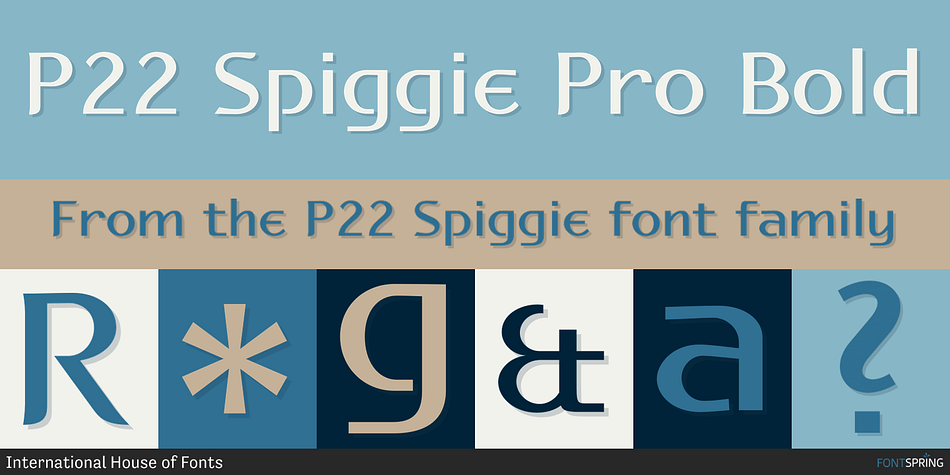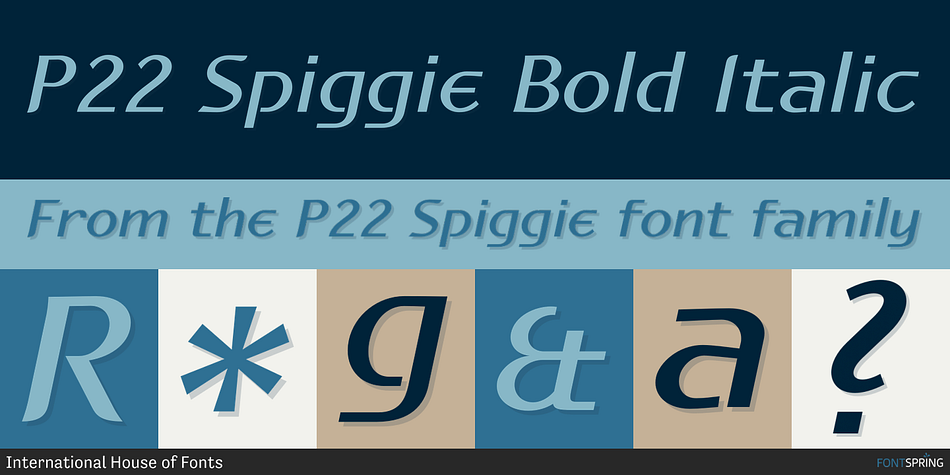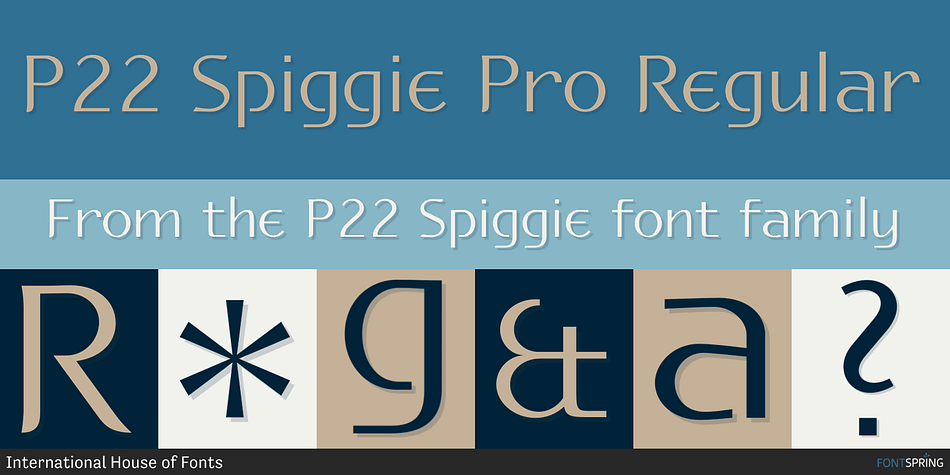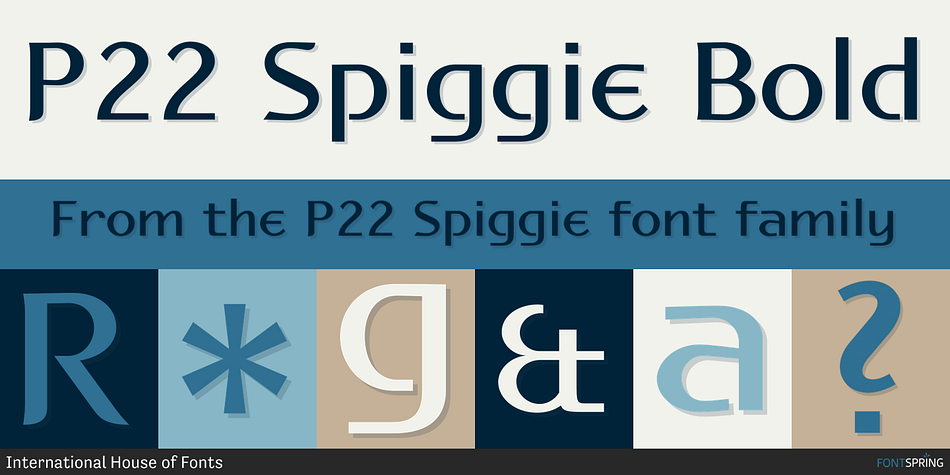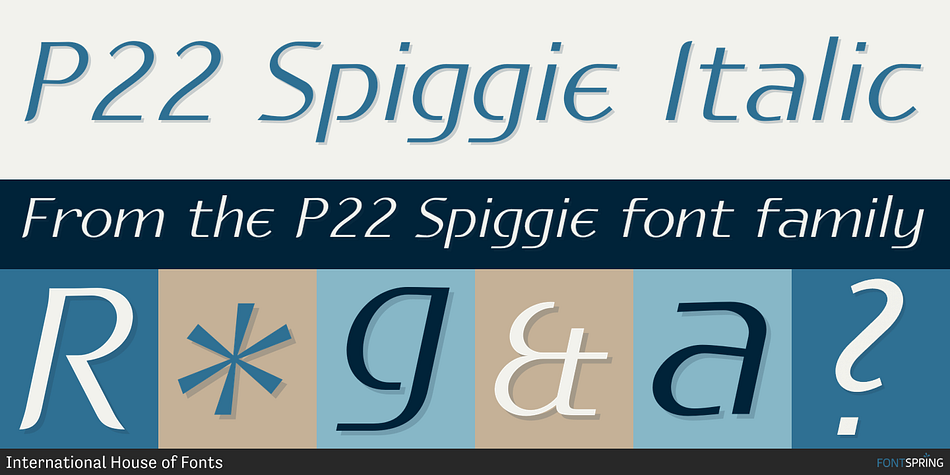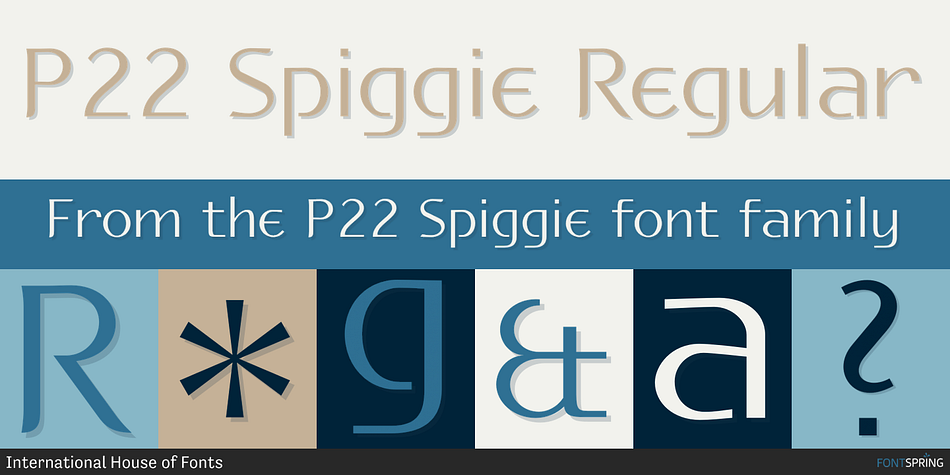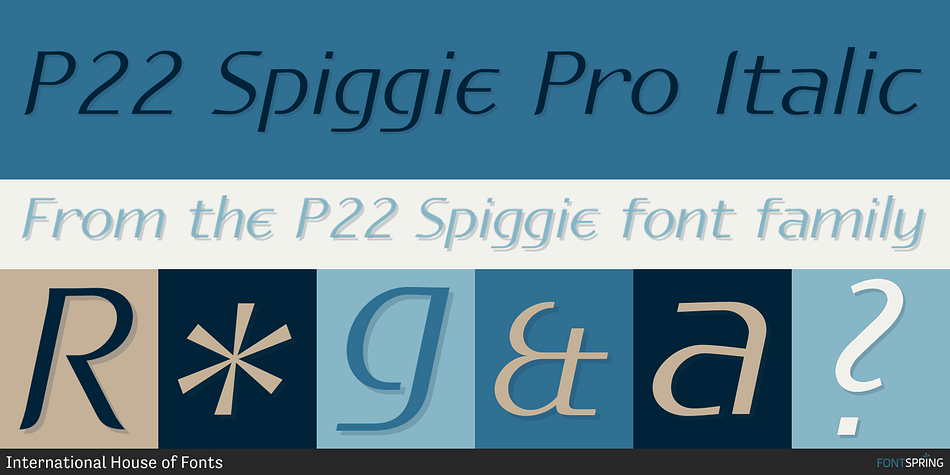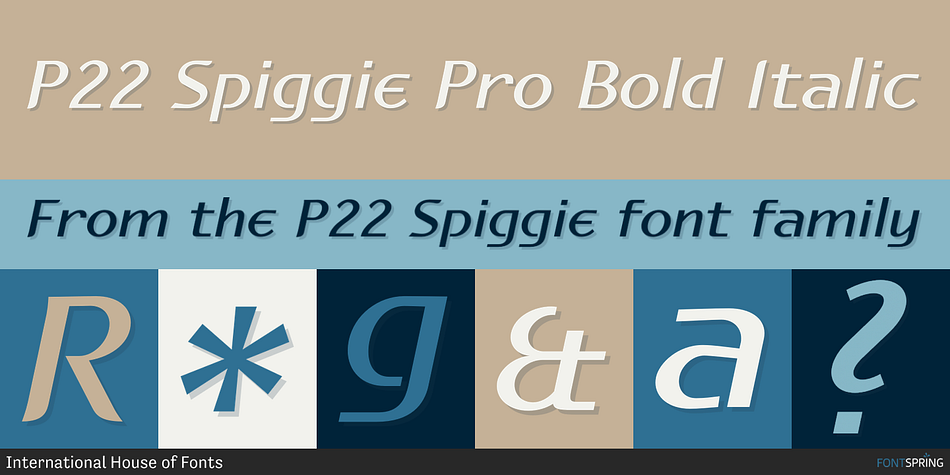
P22 Spiggie is a sans serif font family. This typeface has eight styles and was published by International House of Fonts.
Spiggie is a sans-serif, whose name came to me on a Shetland beach. The beach traces a tight curve between the shoreline and the sea paralleled in the fonts controlled yet smooth character.
The design language reaches back to the art deco period and the 1920s, yet retains a distinct modern flavor.